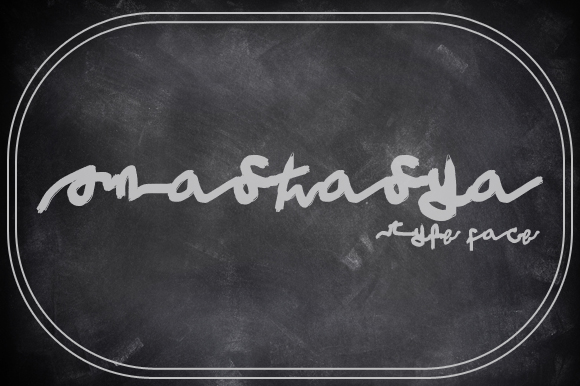
Discover the Elegance of Anastasya Font by Gblack Id
Are you a designer or crafter looking for a unique and elegant font to elevate your creative projects? Look no further than the Anastasya font by Gblack Id. This stunning font features basic punctuation and is sure to add a touch of sophistication to any design.
What is Anastasya Font?
Anastasya font is a beautiful, handcrafted typeface designed by Gblack Id. With its elegant lines and refined aesthetic, this font is perfect for a wide range of creative projects, from branding and advertising to crafting and DIY tutorials.
Key Features of Anastasya Font
- Basic Punctuation: Anastasya font features basic punctuation, making it easy to use for a variety of design projects.
- Elegant Design: The font’s elegant lines and refined aesthetic make it perfect for creating sophisticated designs.
- Handcrafted: Anastasya font is a handcrafted typeface, giving it a unique and personal touch.
Uses for Anastasya Font
Anastasya font is incredibly versatile and can be used for a wide range of creative projects, including:
- Branding and Advertising: Use Anastasya font to create elegant and sophisticated brand identities and advertising materials.
- Crafting and DIY Tutorials: Add a touch of elegance to your crafting and DIY tutorials with Anastasya font.
- Stationery and Invitations: Use Anastasya font to create beautiful stationery and invitations for special occasions.
- Web Design: Anastasya font can be used for web design projects, such as creating elegant headings and titles.
Benefits of Using Anastasya Font
There are many benefits to using Anastasya font in your design projects, including:
- Unique and Elegant: Anastasya font is a unique and elegant typeface that will add a touch of sophistication to any design.
- Easy to Read: The font’s clear and refined design makes it easy to read, even at small sizes.
- Versatile: Anastasya font can be used for a wide range of creative projects, from branding and advertising to crafting and DIY tutorials.
Tips for Using Anastasya Font
Here are a few tips for using Anastasya font in your design projects:
- Use it Sparingly: Anastasya font is a elegant and sophisticated typeface, so use it sparingly to add emphasis and create visual interest.
- Pair it with Other Fonts: Anastasya font can be paired with other fonts to create a unique and visually appealing design.
- Experiment with Different Sizes: Experiment with different sizes and styles to find the perfect look for your design project.
In conclusion, Anastasya font by Gblack Id is a beautiful and elegant typeface that is perfect for designers and crafters looking to add a touch of sophistication to their creative projects. With its basic punctuation and elegant design, this font is sure to become a favorite in your design arsenal.
Overall, Anastasya font is a great choice for anyone looking to add a touch of elegance and sophistication to their design projects. Its unique and refined aesthetic makes it perfect for a wide range of creative projects, from branding and advertising to crafting and DIY tutorials.